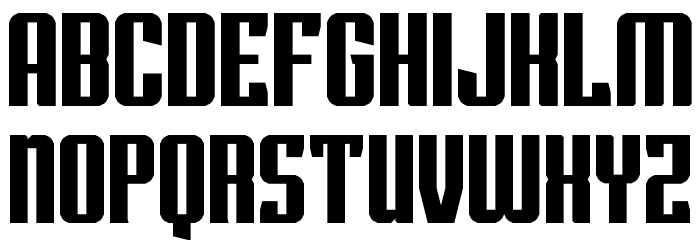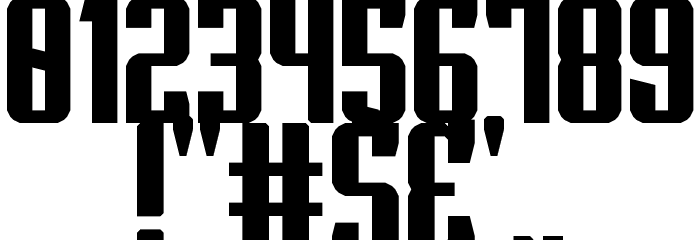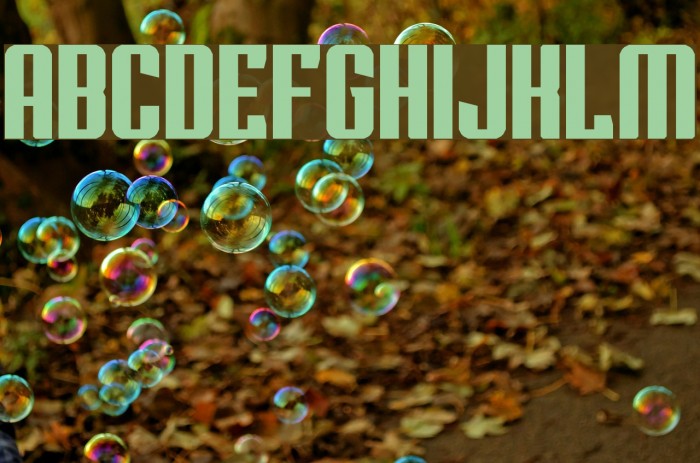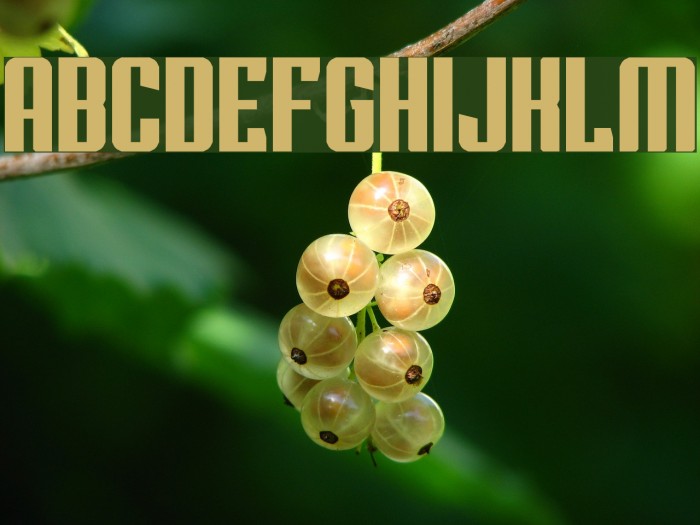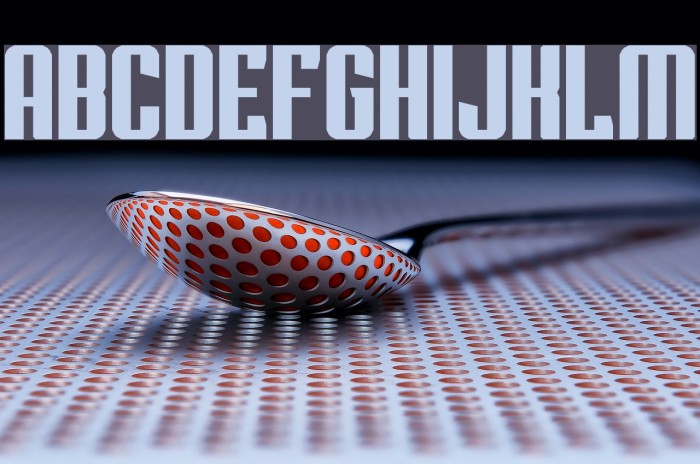
Superguns Regular Font
This font features a bold and impactful design with a strong geometric structure. The characters are uniformly wide, creating a sense of stability and strength. The uppercase letters are particularly striking, with a blocky appearance that commands attention. The numbers and special characters maintain the same bold aesthetic, ensuring consistency across all elements. The font's design is modern and assertive, making it ideal for projects that require a strong visual presence.
A bold, geometric font with a strong, modern aesthetic.
- Proposed Projects: Ideal for posters, headlines, branding, and any design requiring a bold statement.